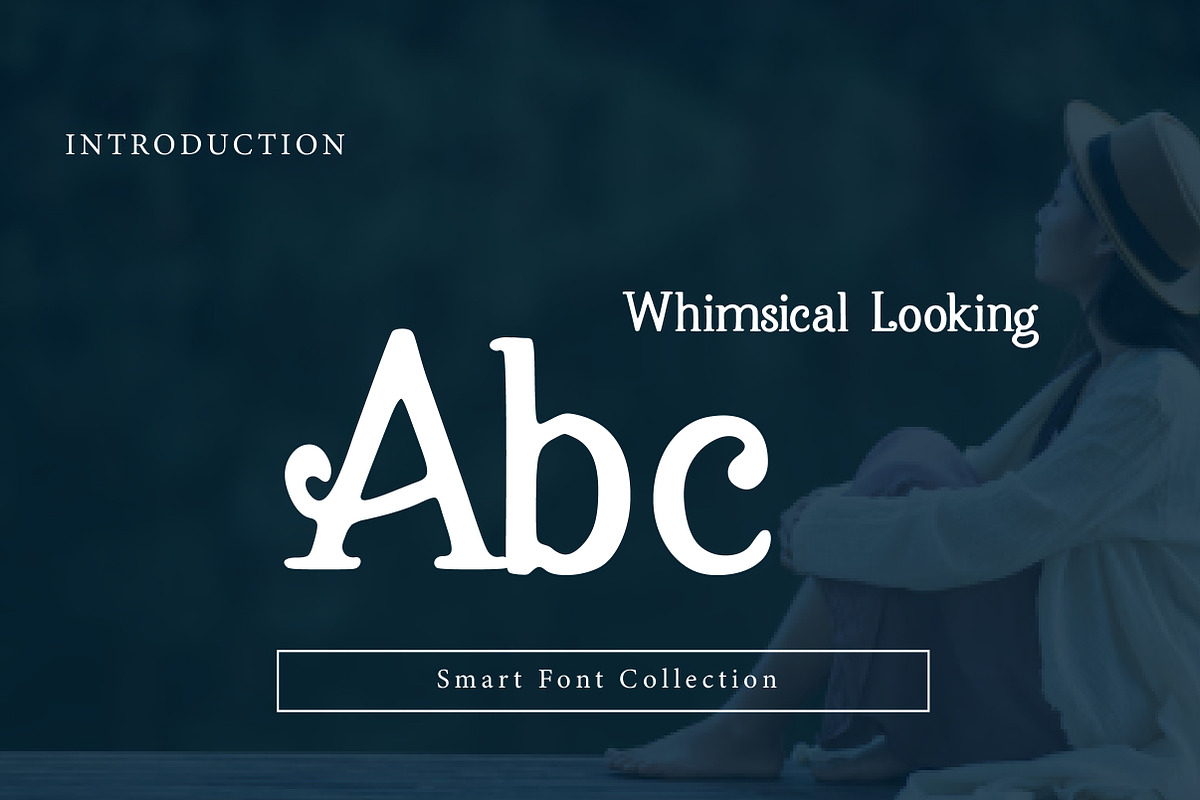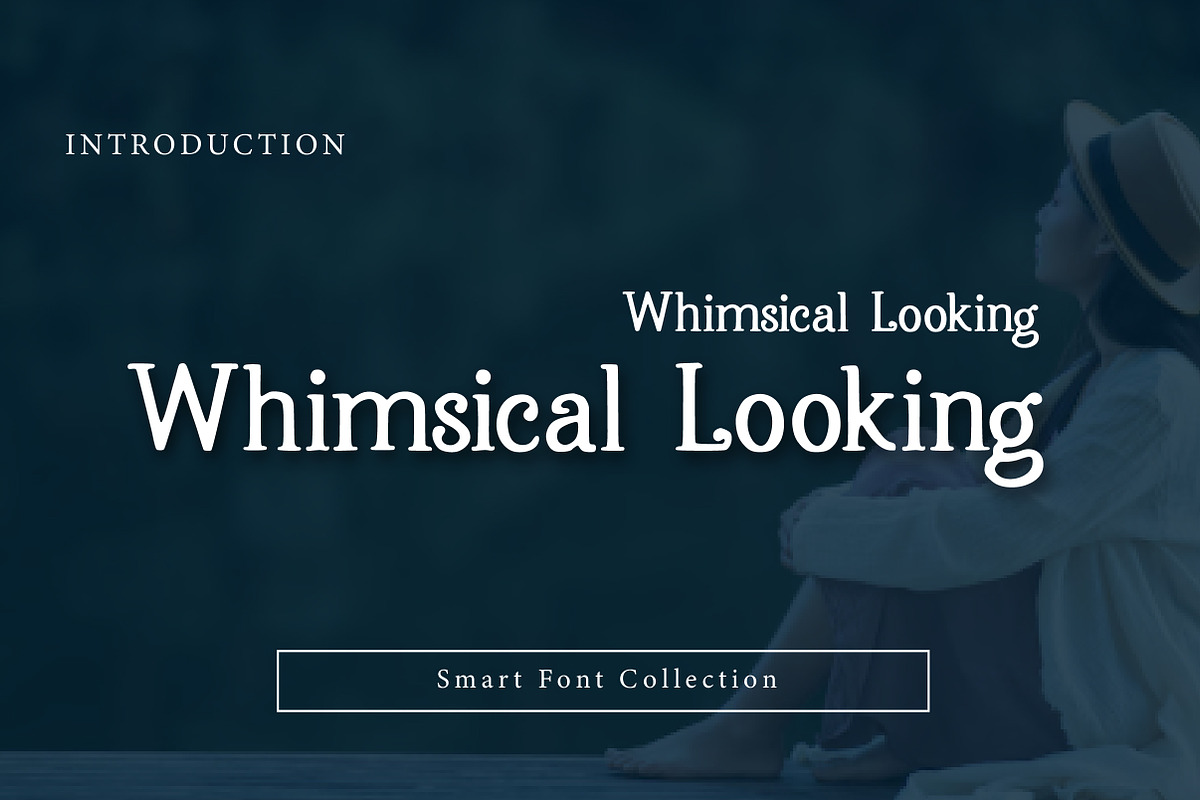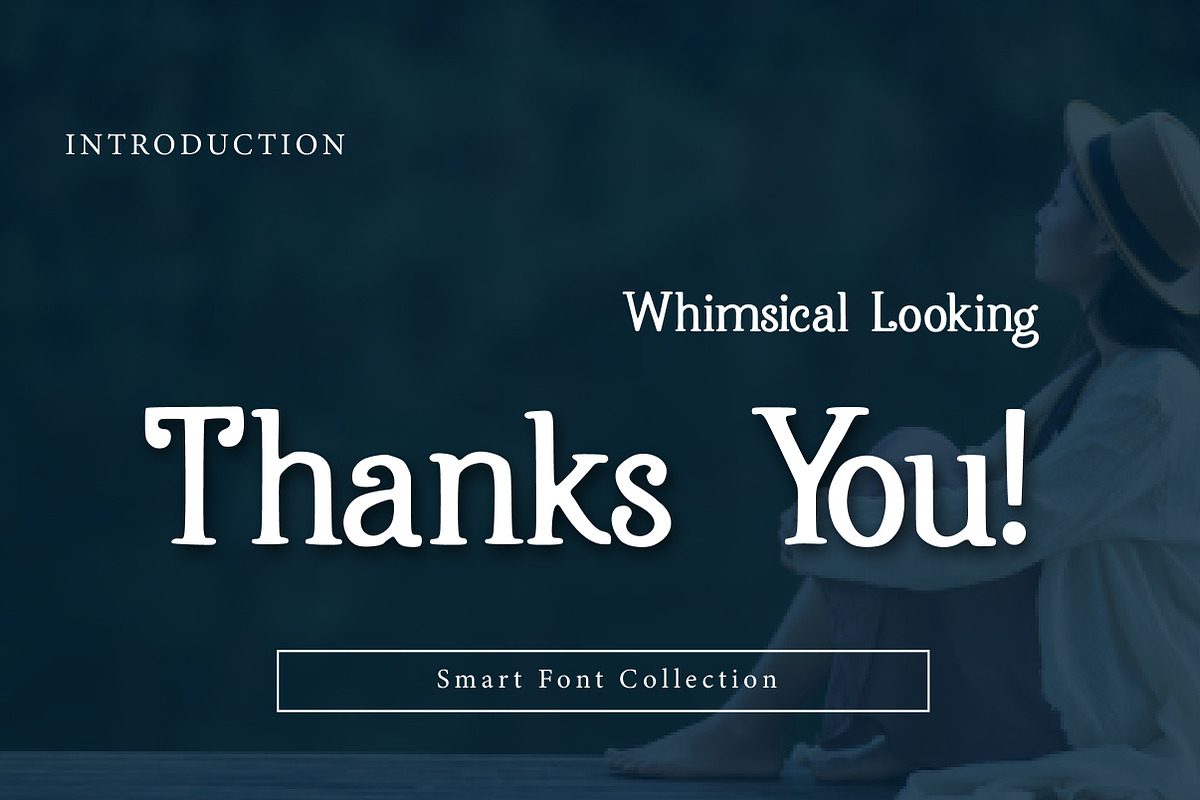
Whimsical Looking
Whimsical Looking is a charming, elegant, and playful serif display font designed with a light, storybook-inspired personality. Featuring soft curves, gentle contrast, and slightly quirky details, this typeface delivers a whimsical yet refined look—perfect for designs that need to feel magical, friendly, and expressive.
Blending classic serif structure with a whimsical twist, Whimsical Looking works beautifully for children’s books, playful branding, editorial headlines, packaging, invitations, posters, quotes, and creative storytelling designs. Its letterforms feel warm and approachable while maintaining enough elegance for professional use.
Whether you’re designing a fantasy-themed title, a cute brand logo, a whimsical poster, or elegant typography for creative content, Whimsical Looking adds character and imagination to your work. It performs best as a display font in headlines, titles, and branding where its unique personality can truly shine.